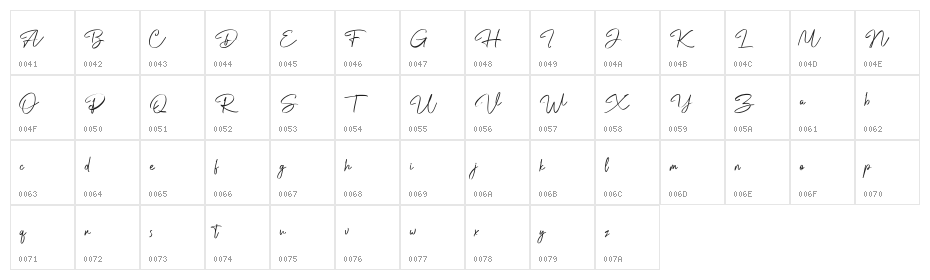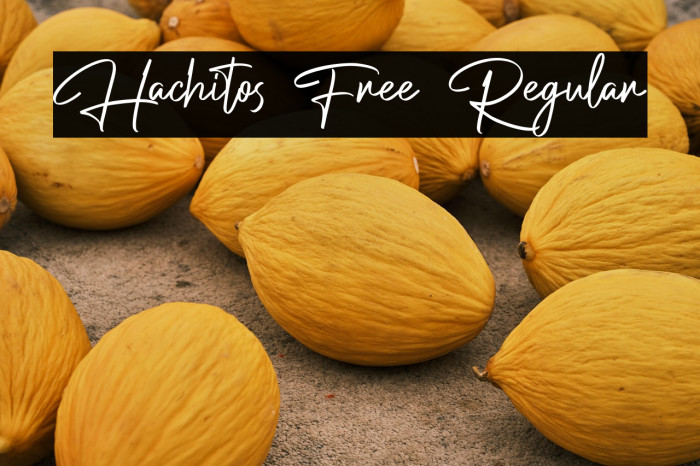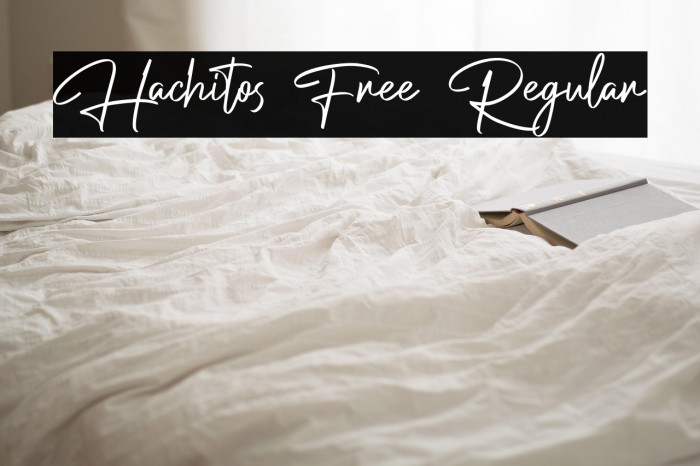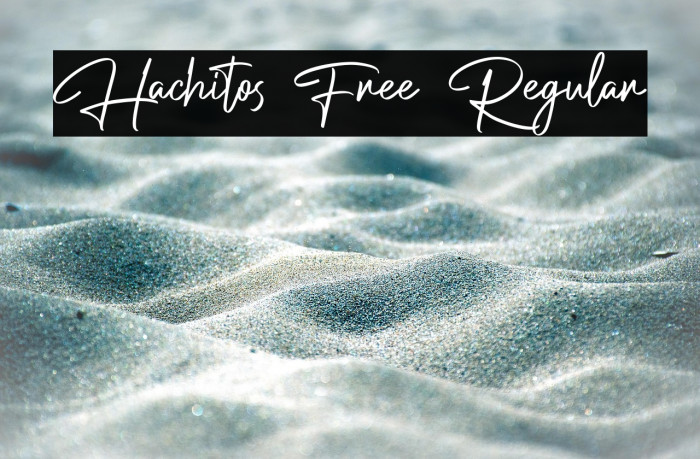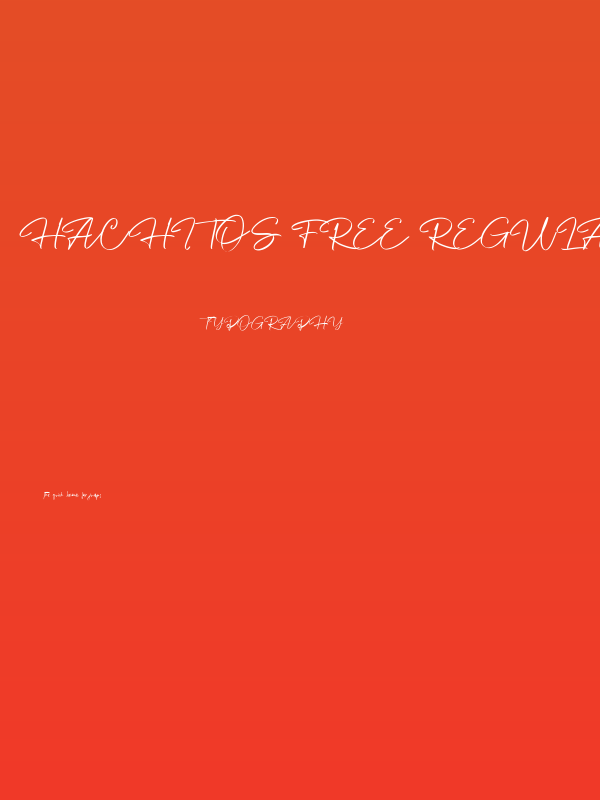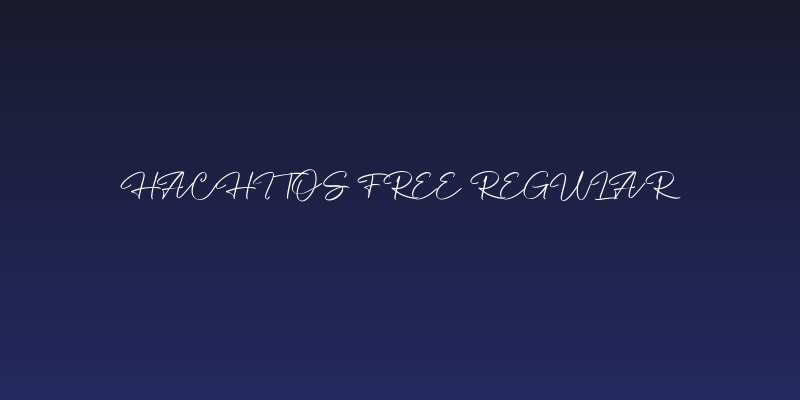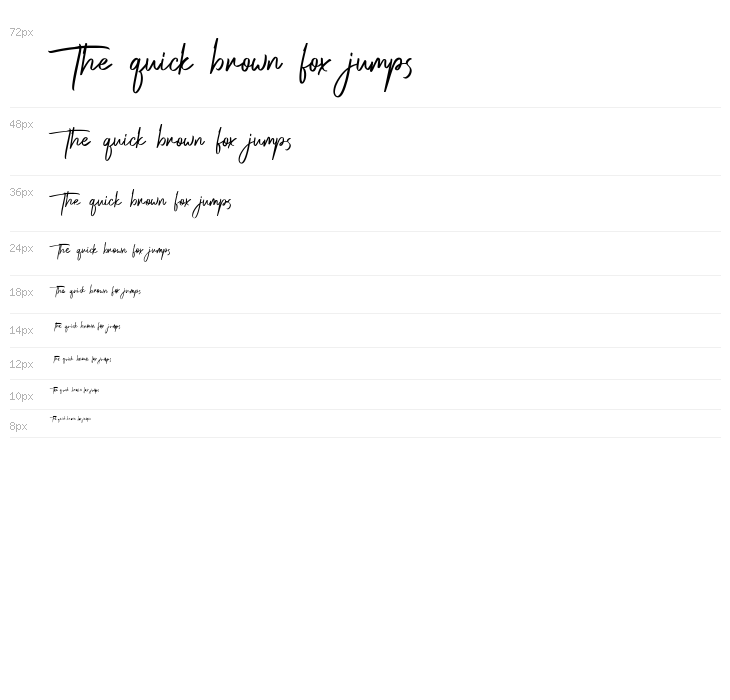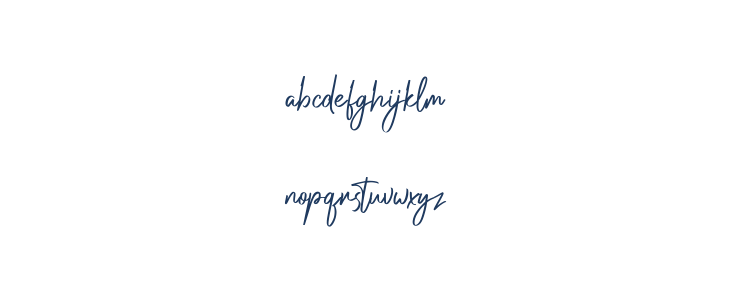
Hachitos Free Regular Font
Hachitos Free Regular Description
This font features an elegant and flowing script style, characterized by its smooth, cursive strokes and graceful curves. The uppercase letters are bold and prominent, with a distinctive flair that adds a touch of sophistication. The lowercase letters maintain a consistent flow, enhancing readability while preserving the font's artistic appeal. The overall design is both modern and timeless, making it suitable for a variety of creative projects. The font's fluidity and charm make it ideal for invitations, branding, and decorative purposes.
| Overall Style | Elegant, Modern |
| Proposed Projects | Ideal for wedding invitations, branding, greeting cards, and decorative designs. |